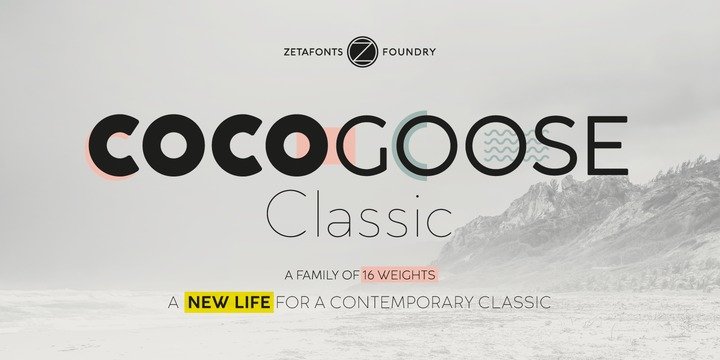
Cocogoose Classic Font Famly
Introducing the new font family. Cocogoose Classic Font Family designed and shared by Zetafonts. Created as a display typeface in 2012 by Cosimo Lorenzo Pancini, Cocogoose is one of Zetafonts most loved typefaces. A sans serif typeface of geometric proportions, with very low contrast and slightly rounded corners, it was the first typeface to be produced in the Coco series, an ongoing research on the design variation in gothic typefaces through the ages. Cocogoose extreme x-height and ultrabold weight (with regular being comparable to heavy weights of other typefaces), have since then made it very popular for effective display and logo use, also thanks to decorative versions like Cocogoose Letterpress.